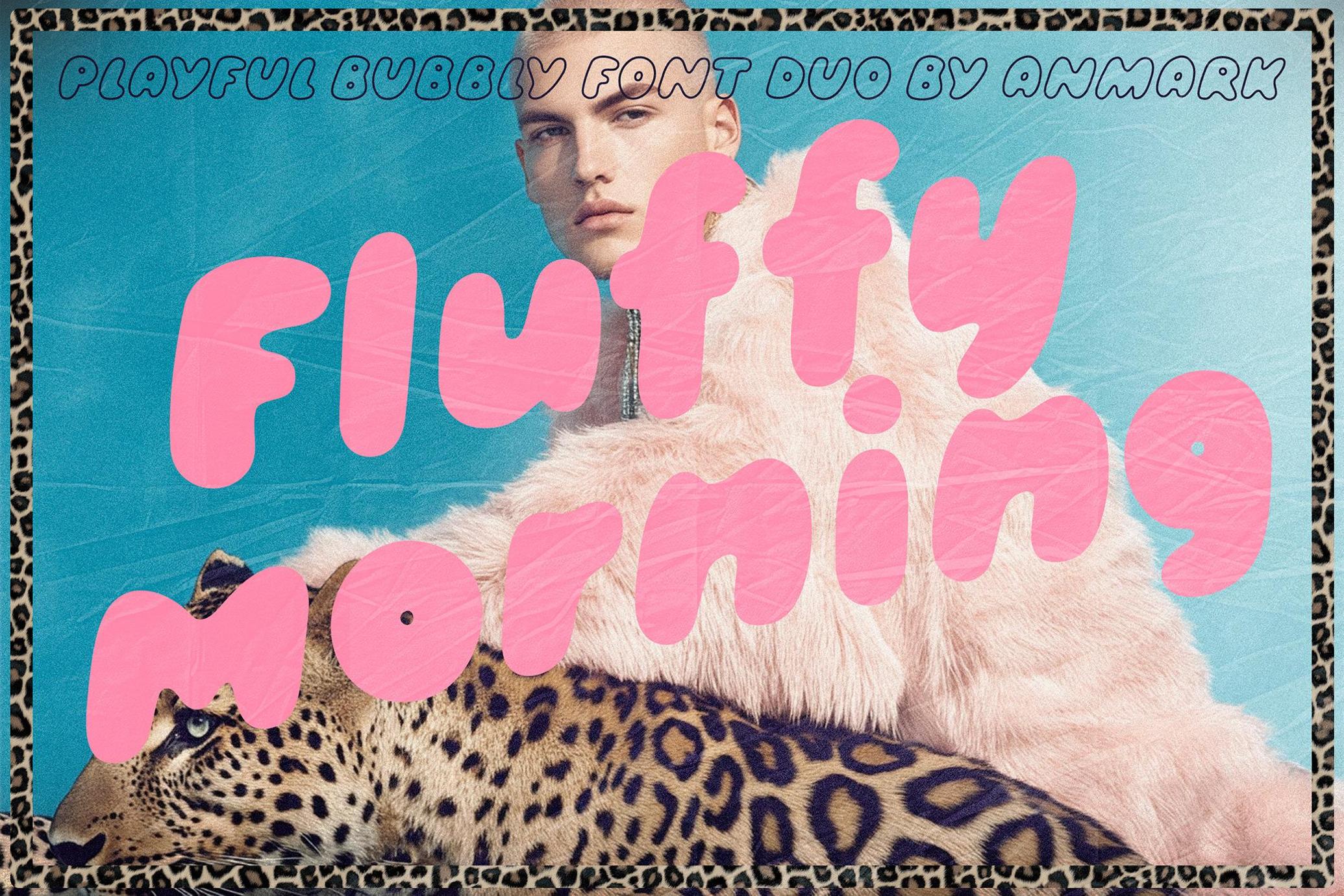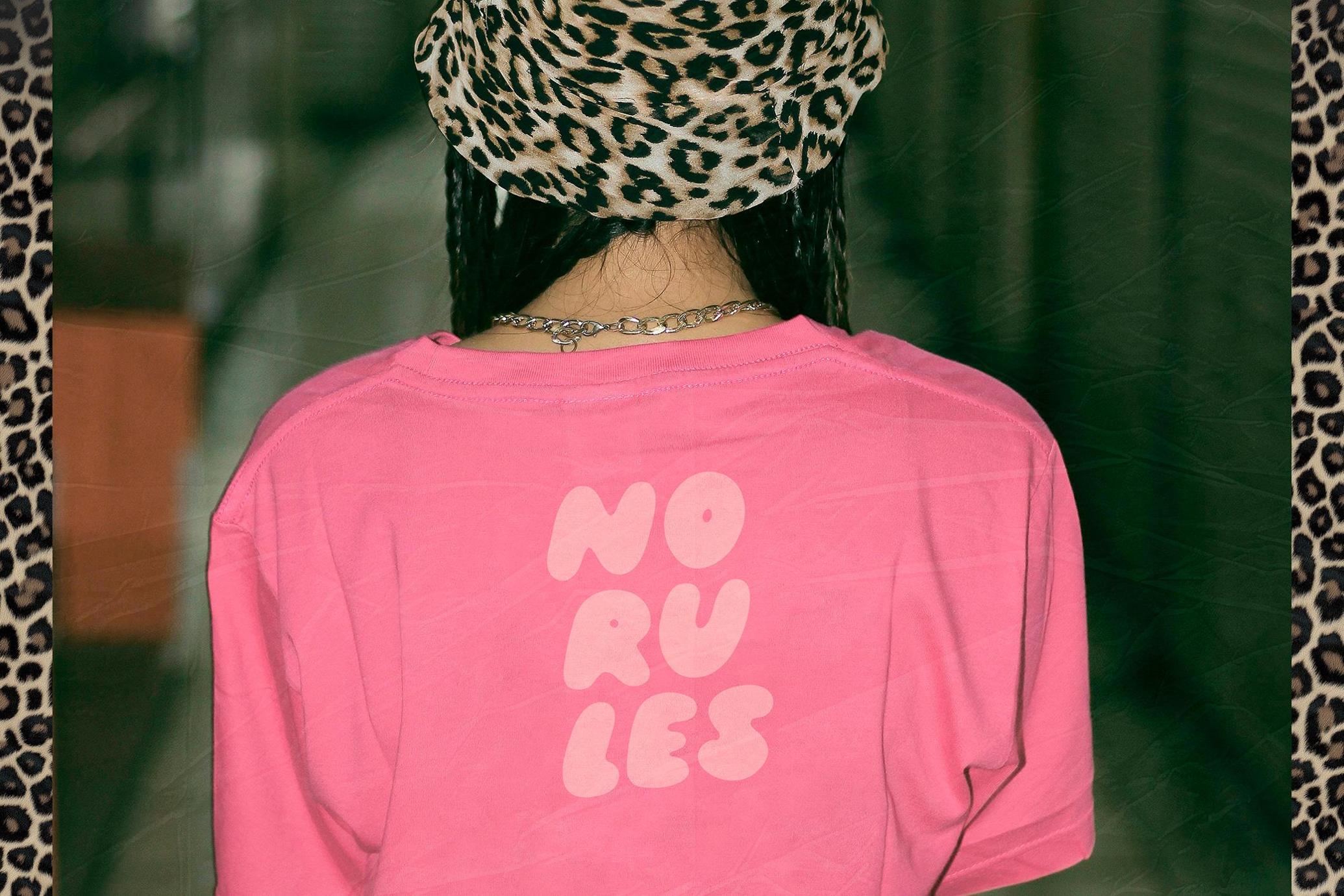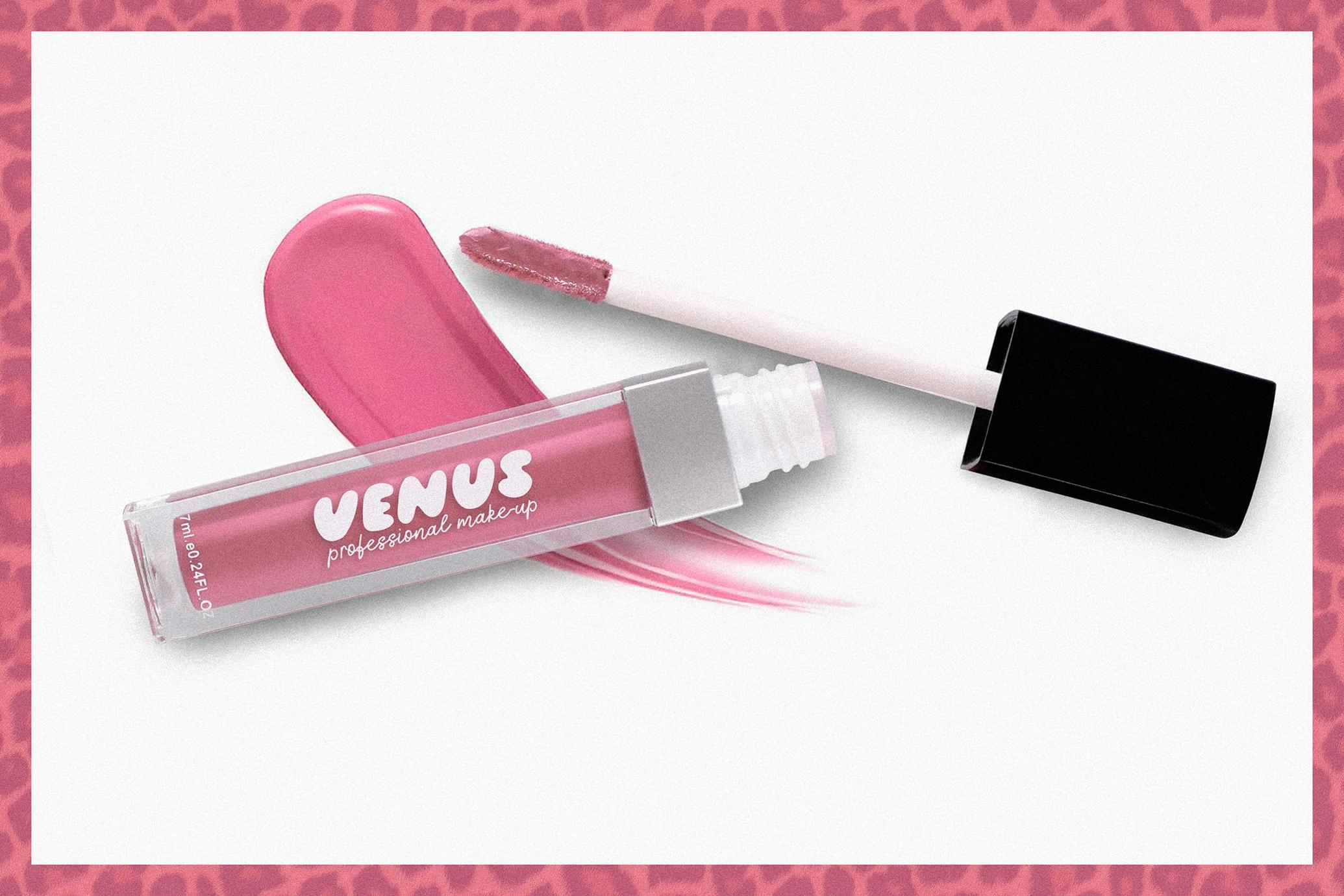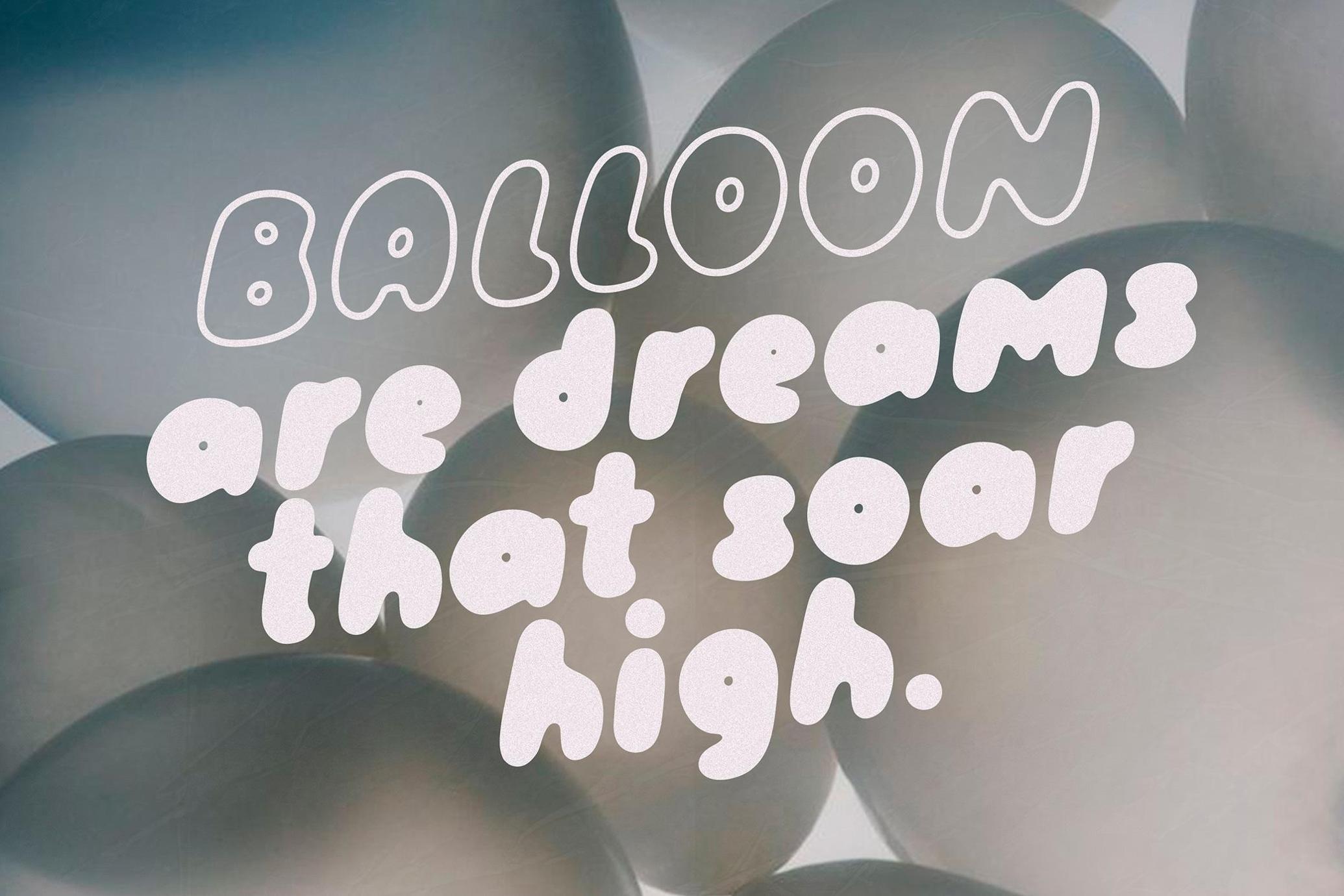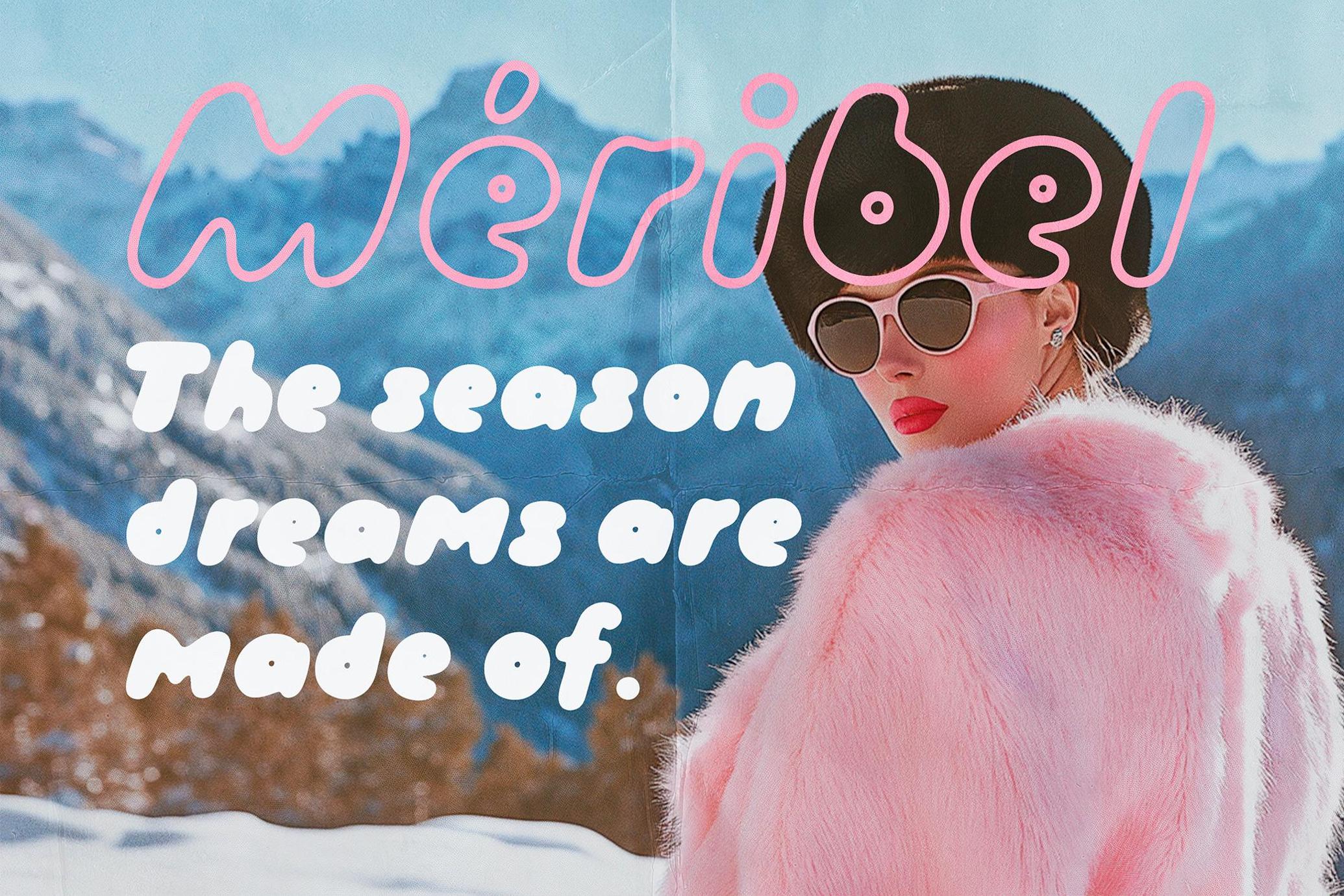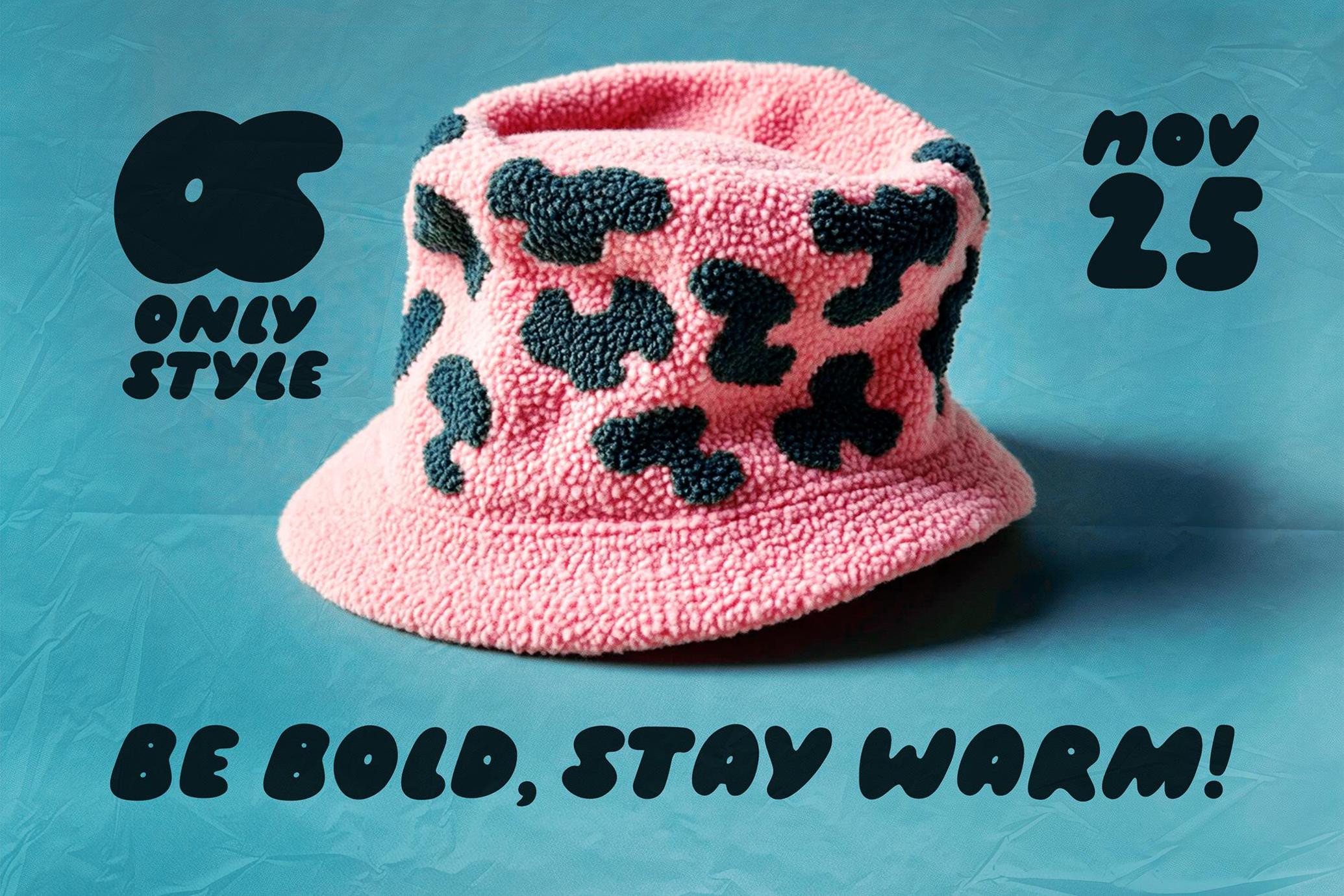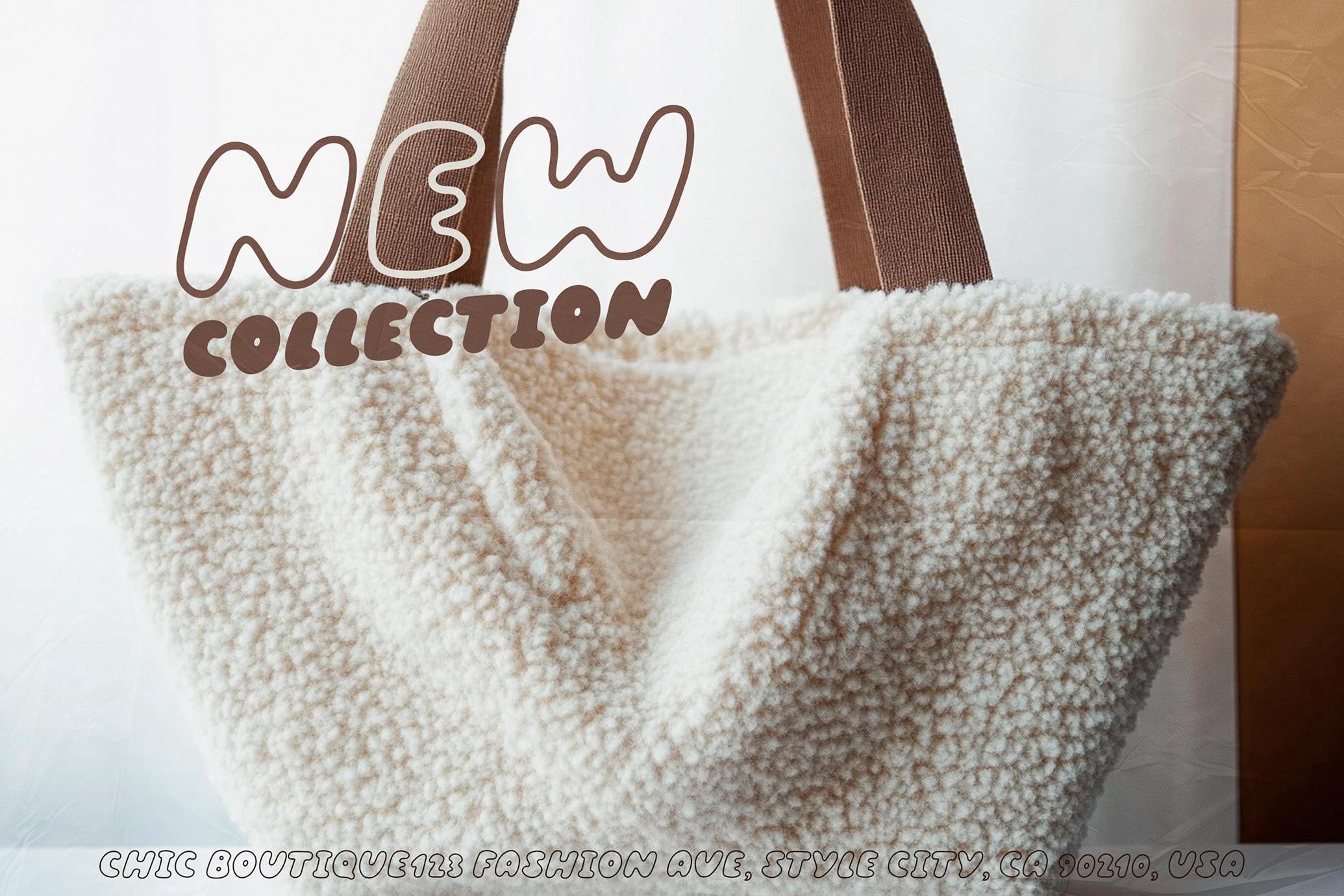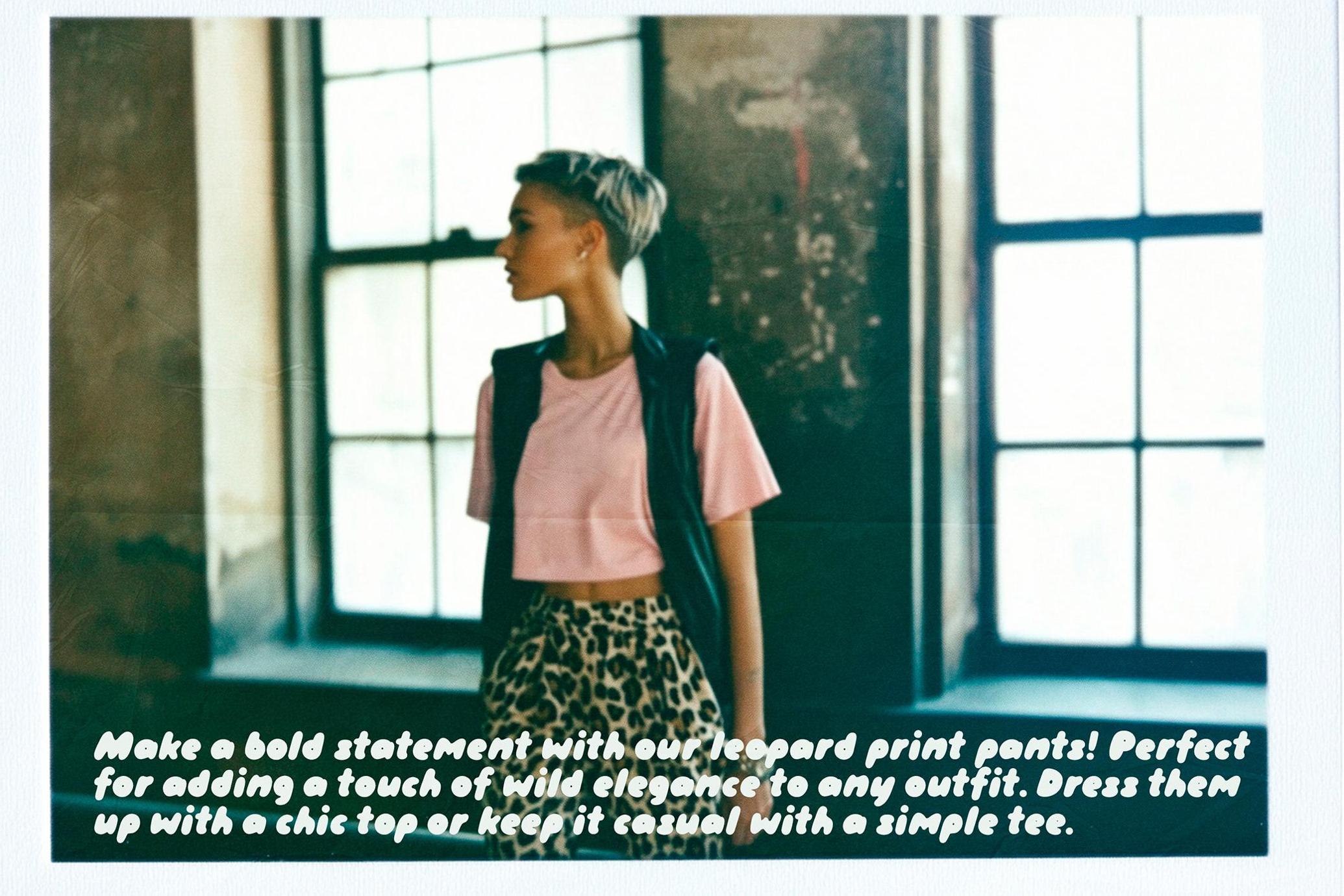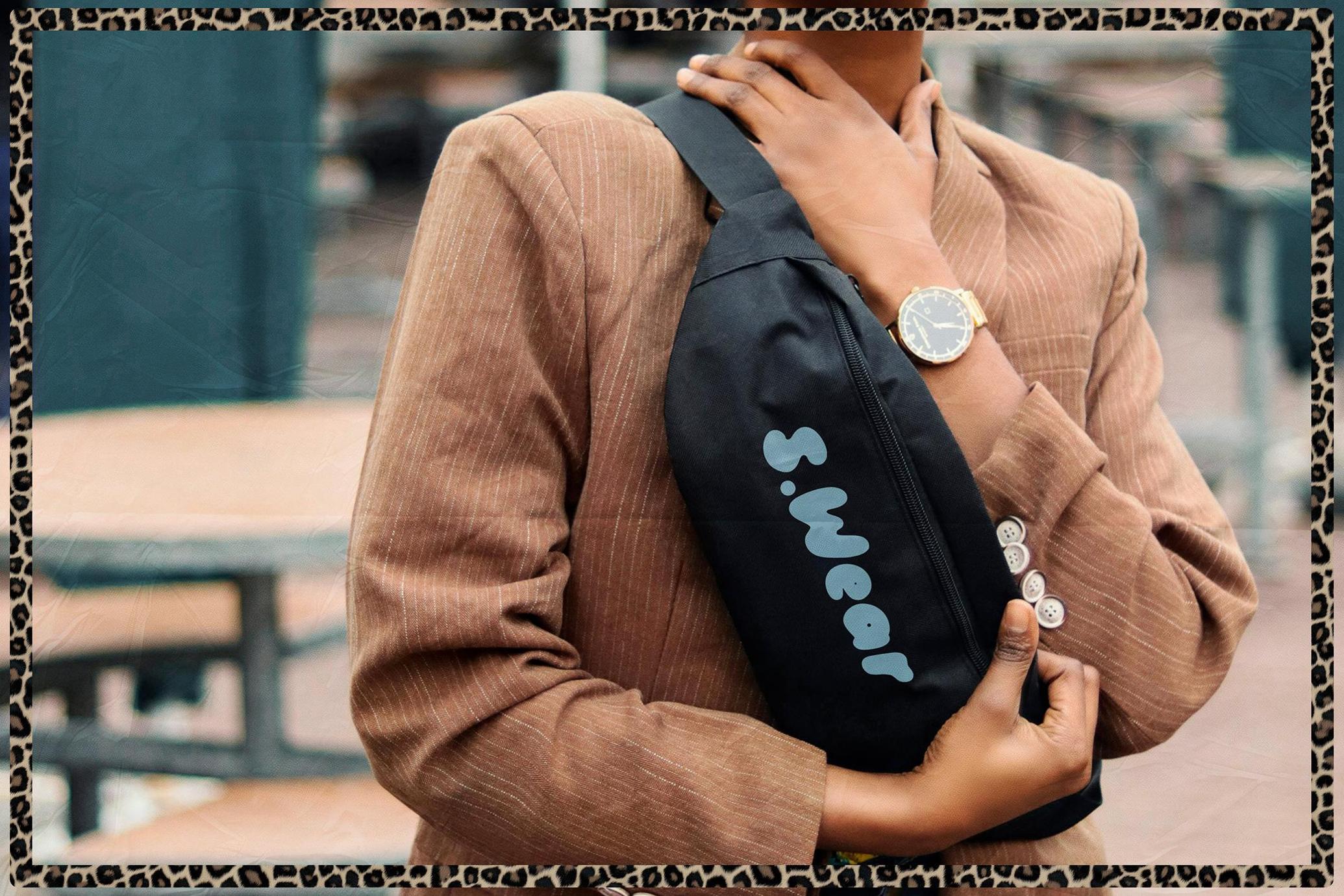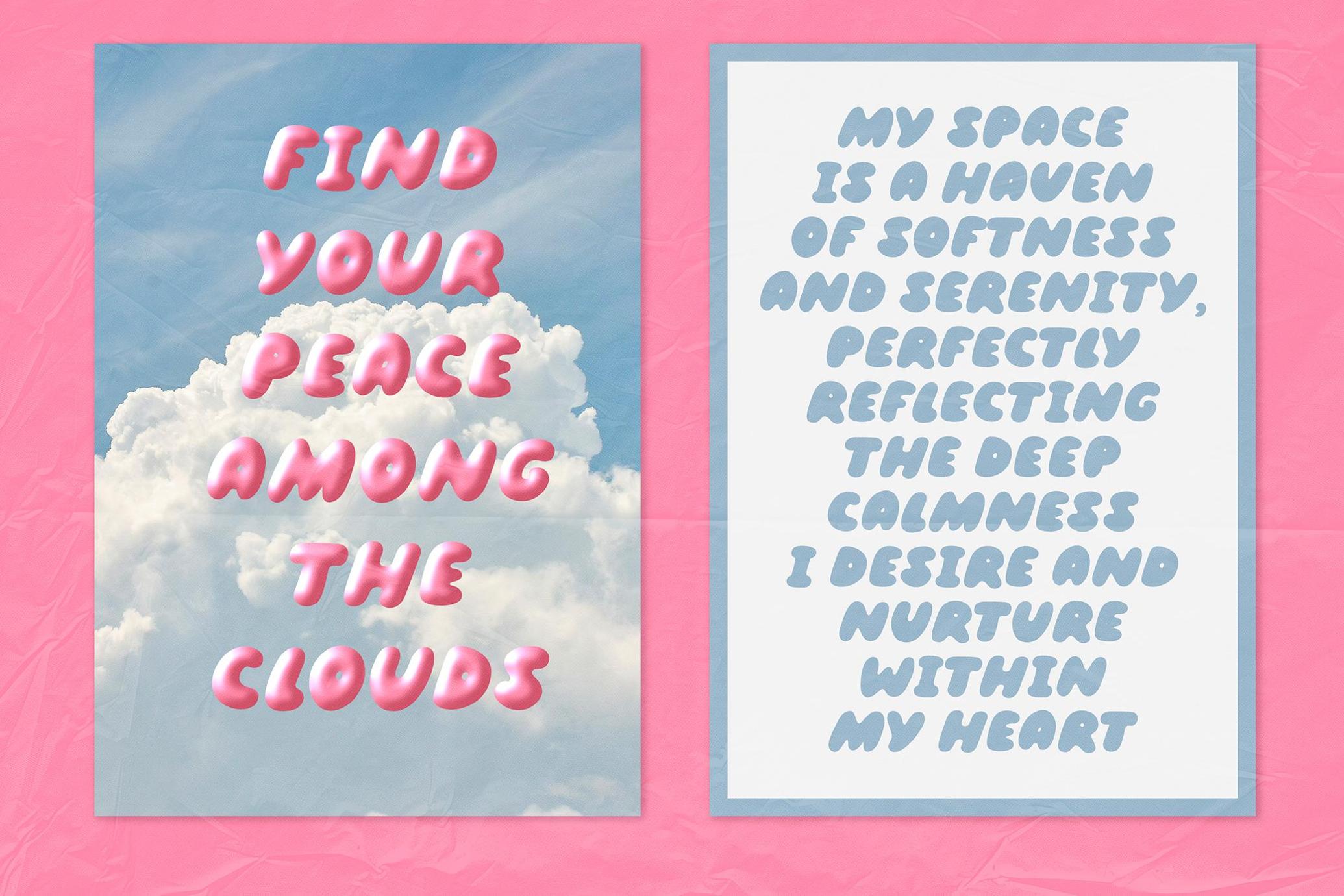
Fluffy Morning | Bubble Font DUO
Fluffy Morning font duo wears its softness on its sleeve. It’s made for projects that want to radiate ease and playfulness — logos, covers, blog headers, invitations, social media posts and stories, and kids-related stuff. With two styles — Bold and Outline — it carries the kind of rounded warmth that makes type feel alive, almost huggable. The shapes lean playful, but they don’t slip into kitsch; instead, they sit right at that sweet spot between friendly and stylish. The set of glyphs includes upper & lower case letters, punctuation, numerals, as well as multilingual characters .